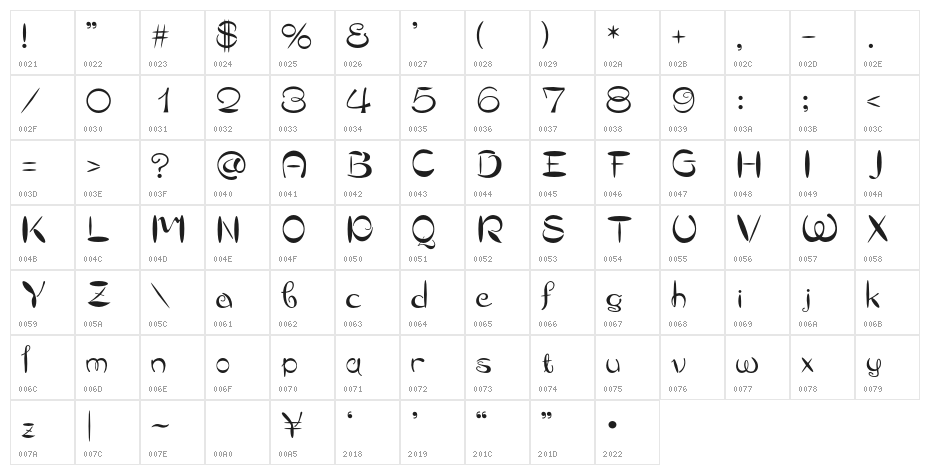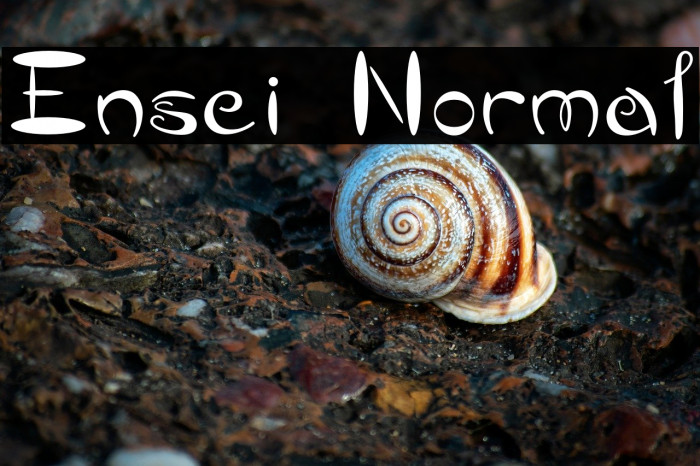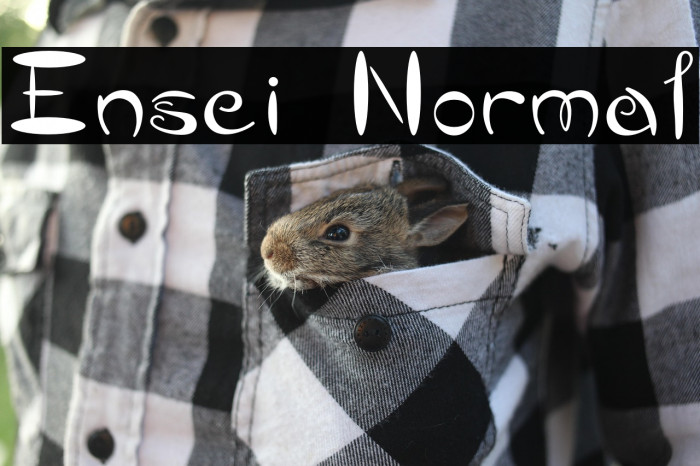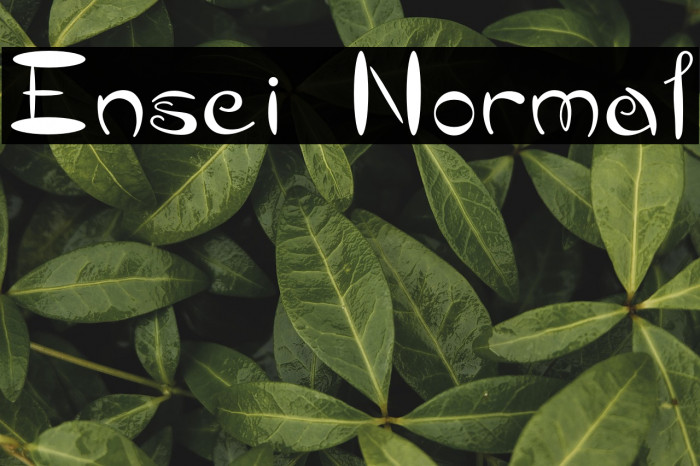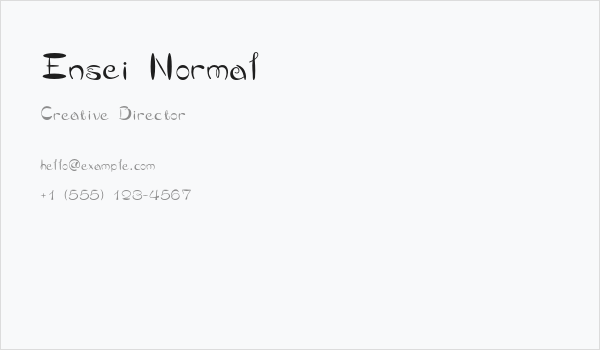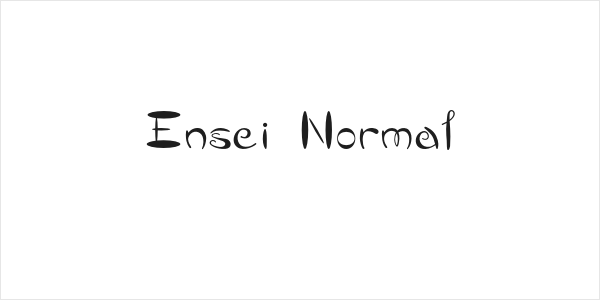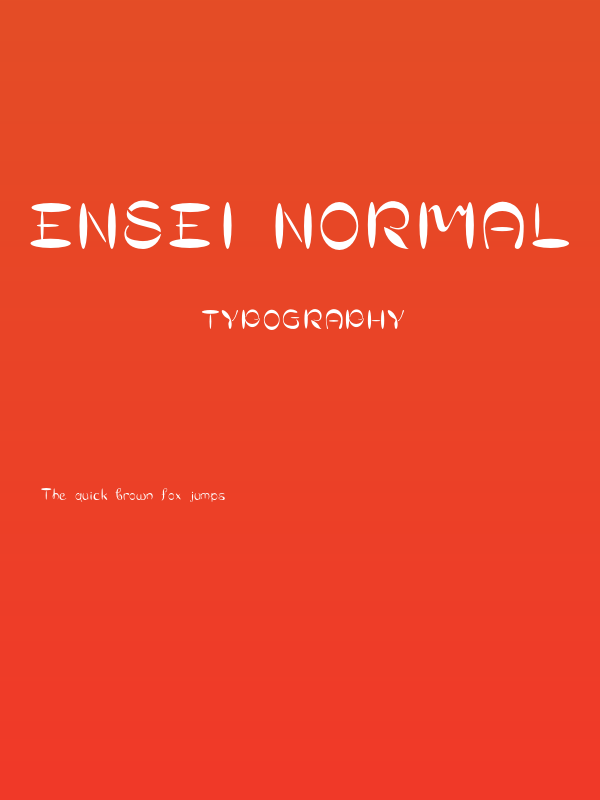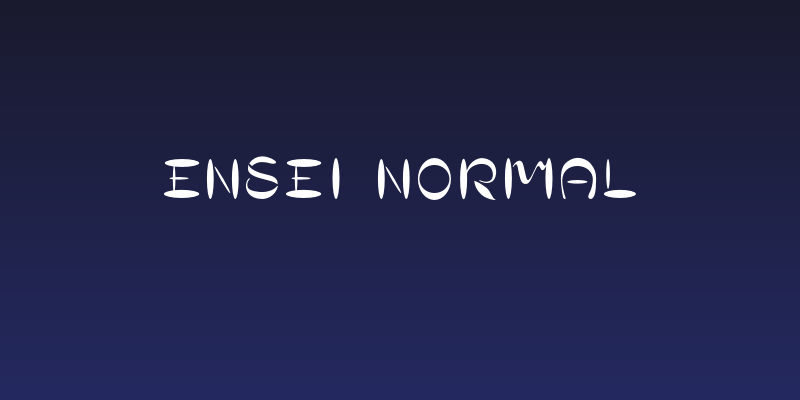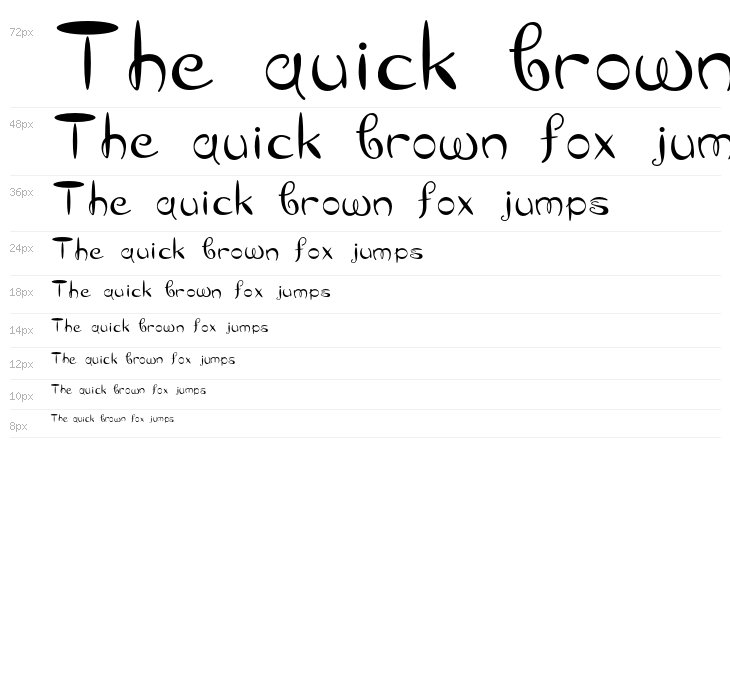
Ensei Normal Font
Ensei Normal Description
This font features a unique and artistic style with a playful and whimsical character design. The letters are characterized by their curvy and fluid strokes, giving them an organic and dynamic appearance. The uppercase and lowercase letters maintain a consistent style, with some characters exhibiting exaggerated curves and loops. The numbers and special characters follow the same artistic theme, ensuring a cohesive look across all glyphs. The font's overall design is both eye-catching and distinctive, making it suitable for creative and expressive projects.
| Use Case | Logos, Headlines, Posters |
| Proposed Projects | Ideal for creative projects such as children's books, playful branding, artistic posters, and unique invitations. |